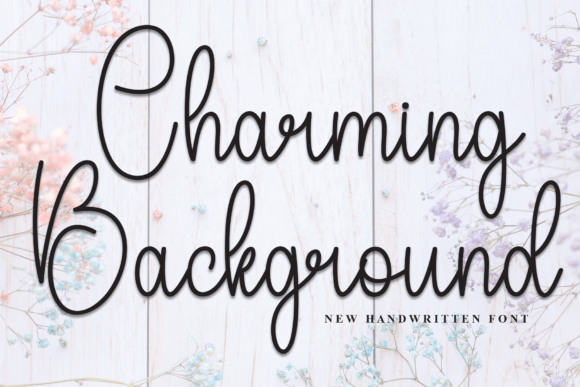
Introducing Charming Background Font: Elevate Your Designs with Elegance and Playfulness
In the world of typography, few fonts manage to strike a balance between elegance and playfulness. However, Charming Background Font achieves just that, making it an excellent addition to any design project. This stylish handwritten script font is designed to capture the essence of sophistication and whimsy, bringing a personal touch to various applications, including invitations, branding, and social media.
The Unique Characteristics of Charming Background Font
Charming Background Font boasts flowing curves and a natural rhythm that sets it apart from other script fonts. Its graceful design brings warmth and sophistication to any project, making it an ideal choice for designers looking to add a touch of personality to their work. The font’s charming aesthetic is perfect for creating eye-catching headlines, captions, and quotes that resonate with audiences.
Key Features of Charming Background Font
- Handwritten Script Style: Charming Background Font features a beautiful, handwritten script style that adds a personal touch to any design.
- Elegant and Playful: The font strikes a perfect balance between elegance and playfulness, making it suitable for a wide range of applications.
- Flowing Curves and Natural Rhythm: The font’s flowing curves and natural rhythm create a sense of movement and fluidity, adding to its charm.
- Warmth and Sophistication: Charming Background Font brings warmth and sophistication to any project, making it perfect for designs that require a touch of elegance.
Perfect for Various Applications
Charming Background Font is a versatile font that can be used in various applications, including:
Invitations and Event Designs
Whether you’re designing wedding invitations, birthday party invites, or corporate event materials, Charming Background Font is an excellent choice. Its elegant and playful style adds a touch of sophistication and whimsy, making your designs stand out.
Branding and Packaging
Charming Background Font is perfect for branding and packaging designs that require a personal touch. Its unique style helps create a memorable brand identity that resonates with customers.
Social Media and Digital Content
In the digital realm, Charming Background Font can be used to create eye-catching social media posts, blog headers, and website content. Its playful and elegant style helps capture audiences’ attention and adds a touch of personality to your online presence.
Tips for Using Charming Background Font Effectively
To get the most out of Charming Background Font, consider the following tips:
Pair with Complementary Fonts
Pair Charming Background Font with complementary fonts to create visual interest and hierarchy in your designs. Choose fonts that contrast with Charming Background Font’s script style to create a harmonious balance.
Use for Headings and Titles
Charming Background Font is perfect for headings and titles. Use it to create eye-catching headlines that draw attention and add a touch of elegance to your designs.
Experiment with Colors and Textures
Don’t be afraid to experiment with different colors and textures when using Charming Background Font. Try pairing it with bold colors or subtle textures to add depth and visual interest to your designs.
In conclusion, Charming Background Font is a stylish and versatile font that can elevate your designs with its elegant and playful style. Its unique characteristics, including flowing curves and a natural rhythm, make it perfect for various applications, from invitations and branding to social media and digital content. By following the tips outlined above, you can use Charming Background Font effectively and add a personal touch to your designs.